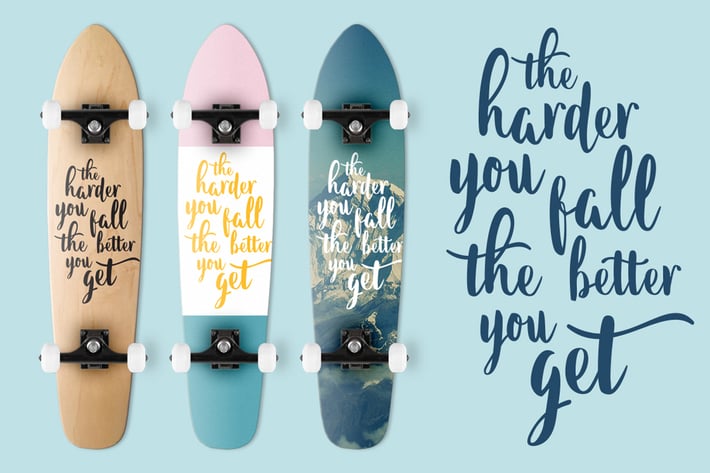
Alloha Font
Alloha is a handwritten script font designed using brush pen. This font perfect for branding, invitation, advertising and more. It includes uppercase standard character, punctuation and multiple language support.